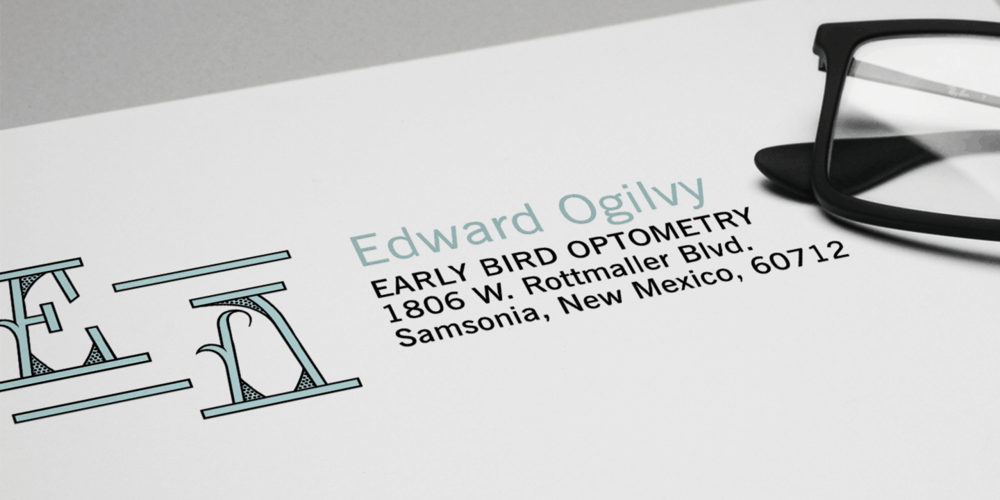
MFC Mastaba Monogram Font Family was designed by Jim Lyles, Brian J. Bonislawsky and published by Monogram Fonts Co.. MFC Mastaba Monogram contains 39 styles and family package options. The inspiration source for Mastaba Monogram is a wonderful hand-drawn letterset from a vintage embroidery publication combining step staggered Aztec or Mayan vibe initials to make a monogram. First drawn as outlined letterforms with stipple shading, we’ve created multiple variations for you to design with. While this monogram was originally intended to adorn handkerchiefs, it has many other possibilities. This is one of many monogram designs from the early 1900’s which fall into a two letter format that is either adorned or interwoven with ornamentation. Download and view the MFC Mastaba Guidebook or MFC Mastaba Standard Guidebook if you would like to learn a little more. The MFC Mastaba Monogram family comes complete with Pro & Standard format fonts. To use the Pro fonts will require with programs that can take advantage of OpenType features contained within the Pro fonts, otherwise you should use the Standard font versions.